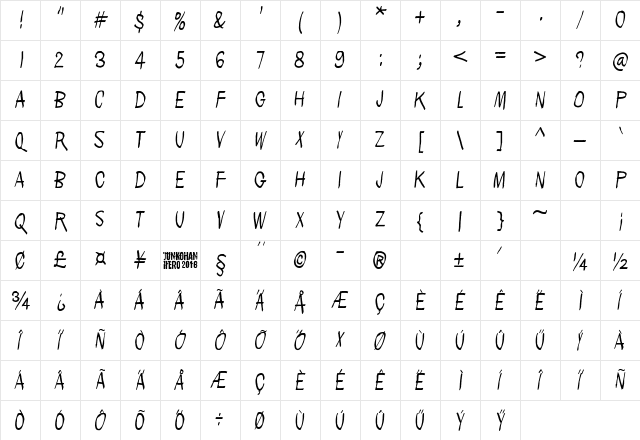
People per square kilometer Regular
Design Context for People per square kilometer
People per square kilometer is a composed and adaptable typeface that performs quietly and consistently across a wide range of design contexts.